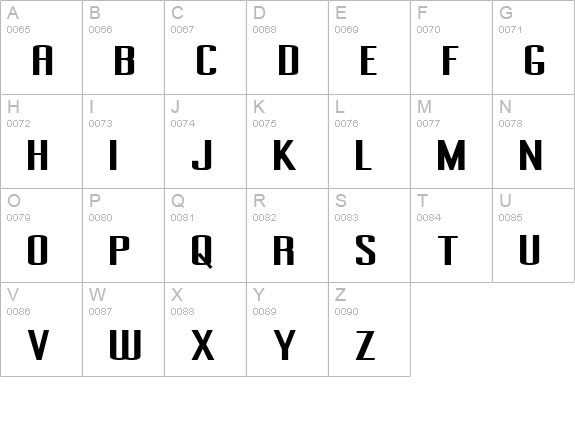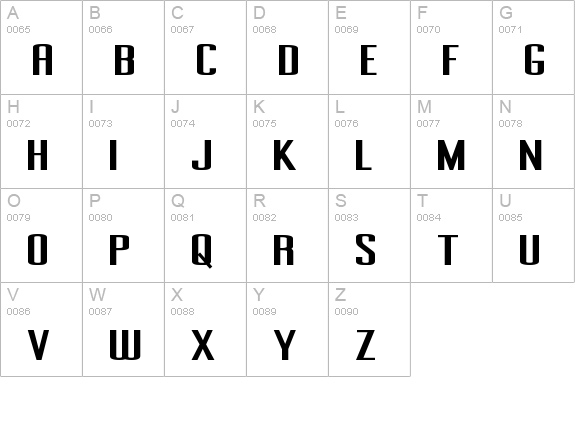
Introducing Pecot, a mesmerizing font that effortlessly combines elegance and modernity. With its sleek lines and subtle curves, Pecot brings a touch of sophistication to any design project. Whether it's for a logo, website, or print materials, this versatile font is sure to make a lasting impression. What sets Pecot apart is not only its impeccable design, but also its accessibility. This incredible font is freely available to download at FontsMarket.com, making it incredibly convenient for designers and creatives alike. Gone are the days of spending a fortune on premium fonts, as Pecot offers the perfect balance of quality and affordability. The versatility of Pecot is truly remarkable. Whether you're aiming for a bold and impactful look, or a more delicate and refined aesthetic, this font has got you covered. Its extensive character set allows for seamless use in multiple languages, ensuring that your message can reach a global audience. Pecot's legibility is second to none, making it the perfect choice for both headlines and body text. Each letter is meticulously designed to ensure optimal readability, even at smaller sizes. Its clean and crisp appearance helps to enhance the clarity of your message, allowing it to shine through effortlessly. With Pecot, you have the freedom to let your creativity soar. Whether you're designing a sleek corporate identity or crafting a whimsical invitation, this font offers endless possibilities. Its timeless appeal ensures that your designs will stand the test of time, making it a wise investment for any designer. Experience the power of Pecot and elevate your design projects to new heights. Download this stunning font for free at FontsMarket.com and unlock a world of endless possibilities.